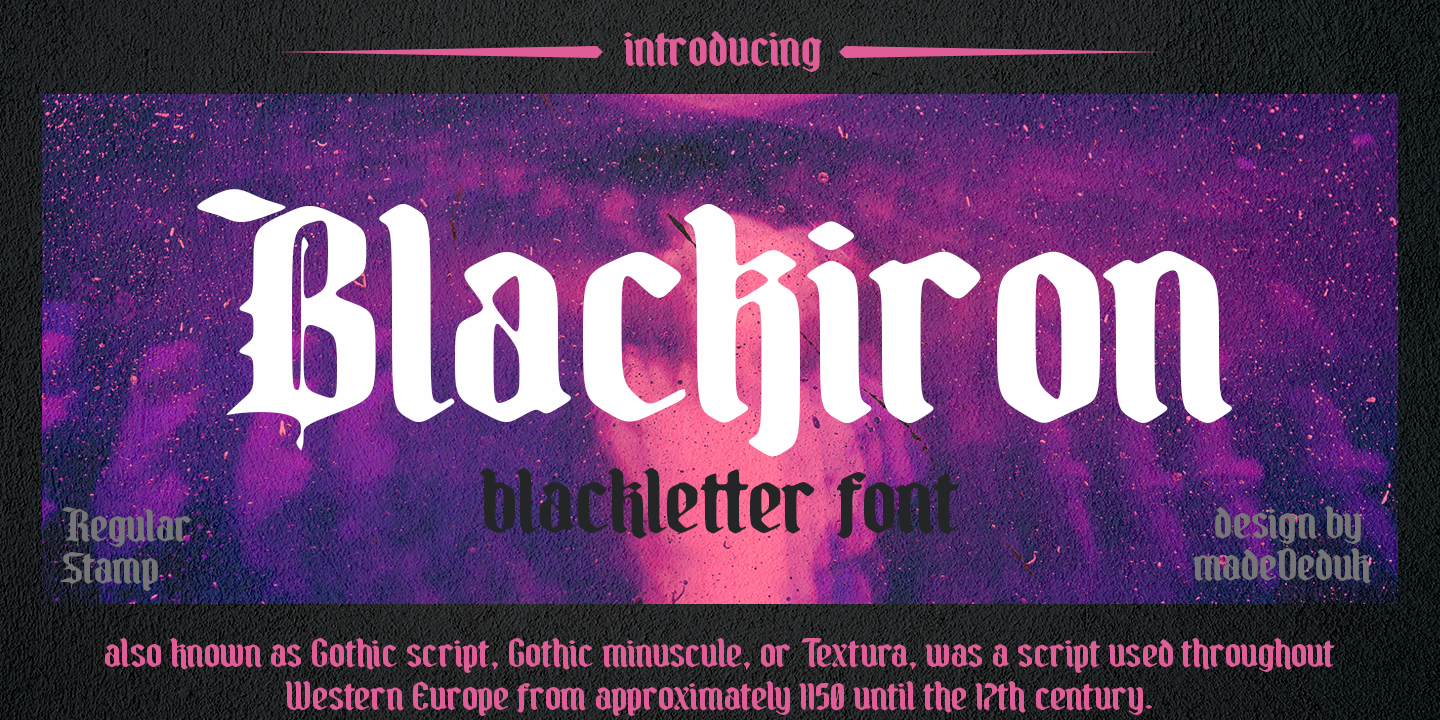
Blackiron Font is perfect for industrial metalwork branding, blacksmith workshop signage, heavy metal band logos, iron forge marketing, steampunk-themed designs, industrial revolution exhibits, welding company graphics, metal fabrication businesses, anvil and hammer themes, and any powerful project that celebrates the raw strength and enduring craftsmanship of traditional ironwork and heavy industrial metalworking.
What makes Blackiron Font exciting is its forged strength that captures the raw power of molten metal and the uncompromising durability of iron shaped by fire and hammer. This typeface embodies the essence of metalworking tradition with solid letterforms that suggest glowing forges, ringing anvils, and the patient skill of blacksmiths who transform raw iron into lasting works of functional art. The font's industrial character makes it perfect for brands and projects that want to communicate strength, durability, and the timeless appeal of craftsmanship that creates objects built to last generations.
The Blackiron Font family includes multiple weights and metallic variations, featuring regular, bold, and heavy versions along with weathered styles and alternate characters that enhance the font's industrial appeal. This comprehensive collection allows designers to create authentically metallic typography that maintains the font's signature forged character while providing flexibility for various industrial and craftsmanship design applications.
When exploring authentic metalworking typography, Blackiron Font Free Download represents an exceptional opportunity to work with a typeface that genuinely captures the spirit of iron forging and industrial craftsmanship. This font demonstrates innovative design thinking by incorporating the raw strength and enduring solidity that define both traditional blacksmithing and the contemporary appreciation for durable, handcrafted metalwork and industrial heritage.
Professional designers appreciate Blackiron Font for its ability to instantly communicate industrial strength and craftsmanship authenticity across various metalworking and industrial platforms. The font's forged character makes it particularly effective for metal fabricators, industrial companies, and craft blacksmiths seeking to establish powerful identities that resonate with audiences who value durability and the honest strength of well-made metal products.
The timeless appeal of Blackiron Font lies in its perfect representation of industrial heritage and metalworking tradition that continues to inspire appreciation for durable craftsmanship and functional strength. This typeface serves as a celebration of the blacksmith's art and the enduring value of objects forged with skill and built to withstand the test of time.
For creative professionals working with industrial and metalworking brands, Blackiron Font represents the ultimate typography solution that brings authentic forged strength and industrial craftsmanship to any application, ensuring designs reflect the raw power and enduring durability that define the most respected metalworking traditions and industrial heritage.